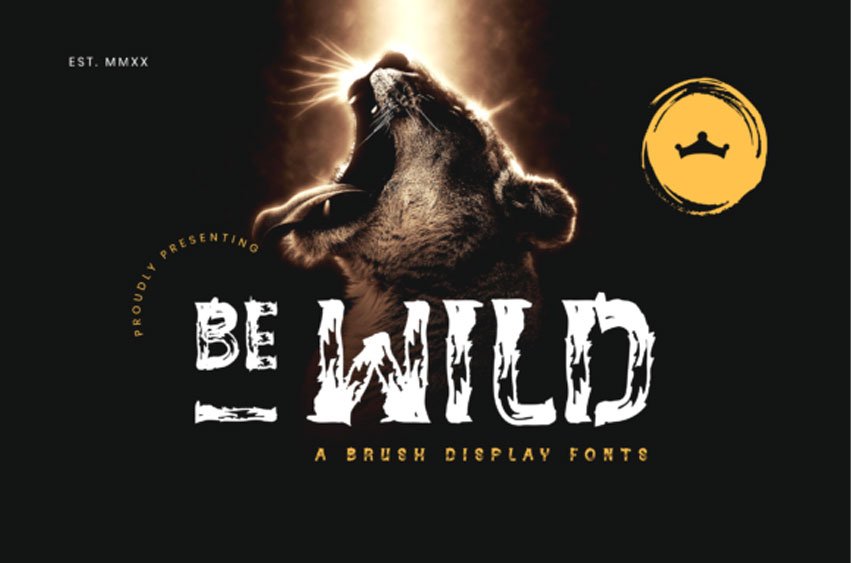
Be Wild Font
Be Wild Font is a bold and incredibly distinct display font, created with the help of a brush pen.
Add this imposing display font to each of your creative ideas and notice how it makes them stand out!